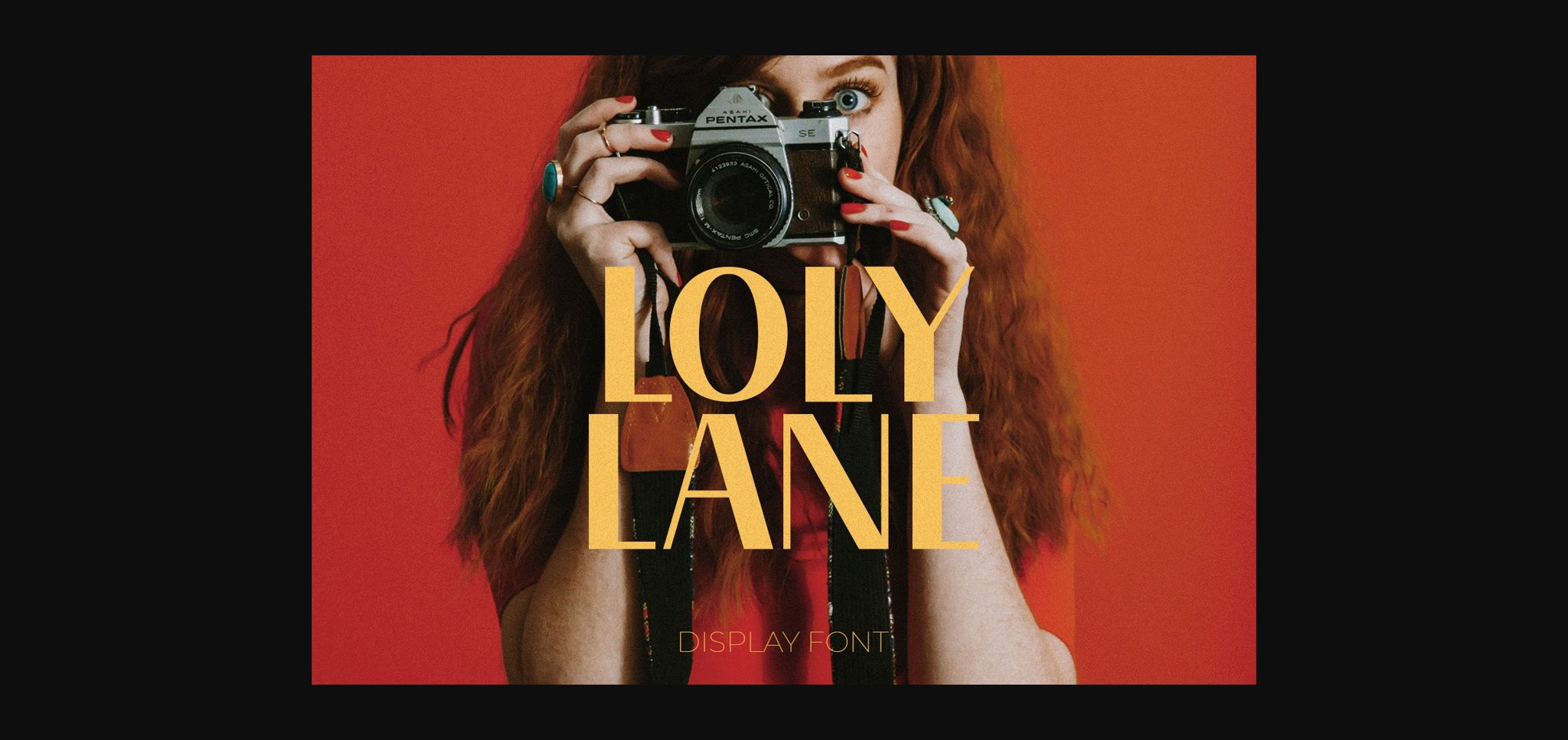
About Loly Lane Font
Loly Lane is a modern and bold sans serif display font. This font evokes a strong, confident personality with striking details on each side of the lettering. Whether you’re creating a vintage-inspired project or want to add a bold classic look to your visuals, this font is a perfect choice.